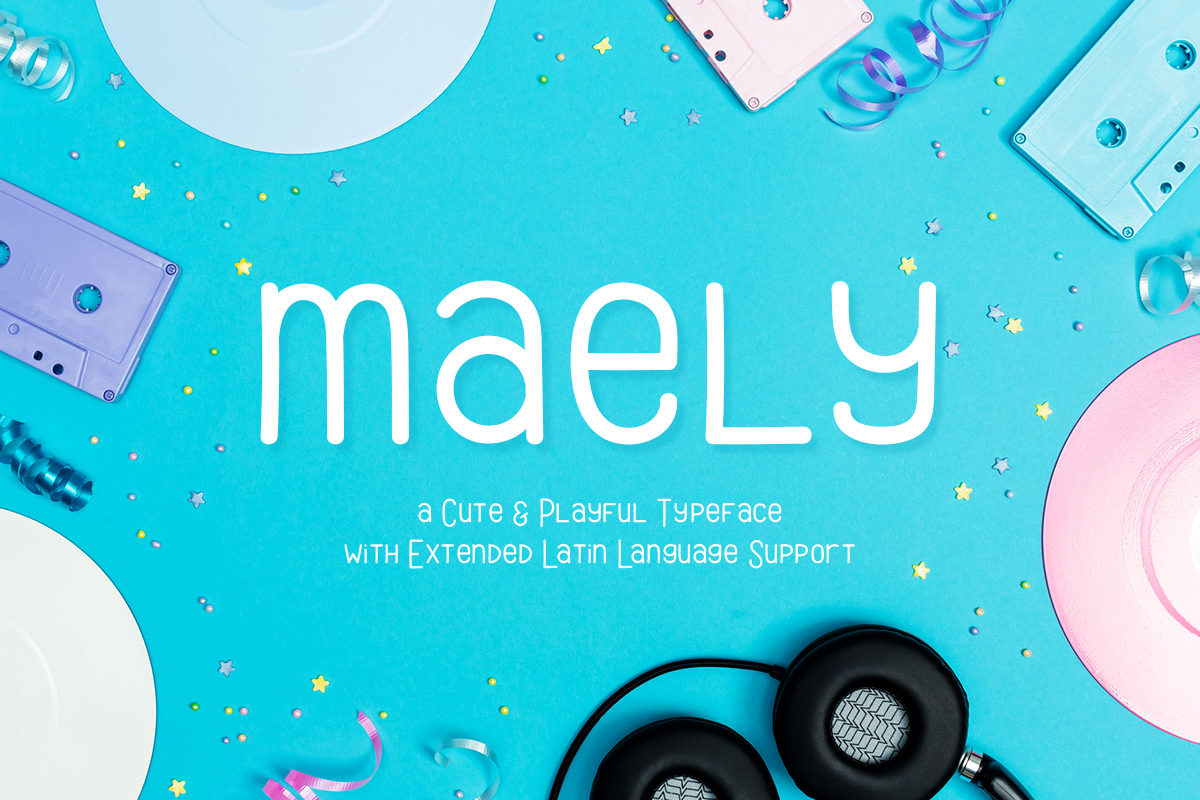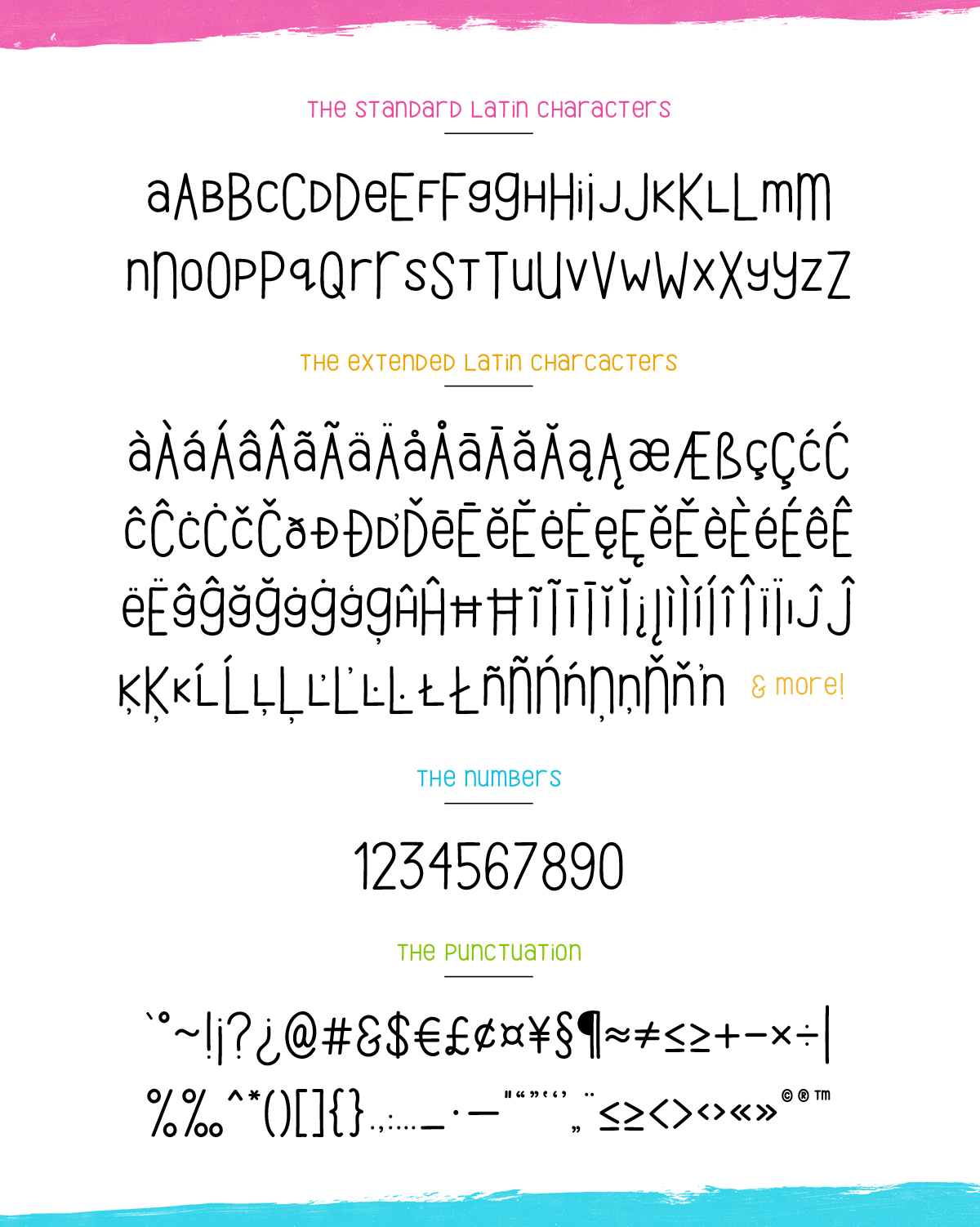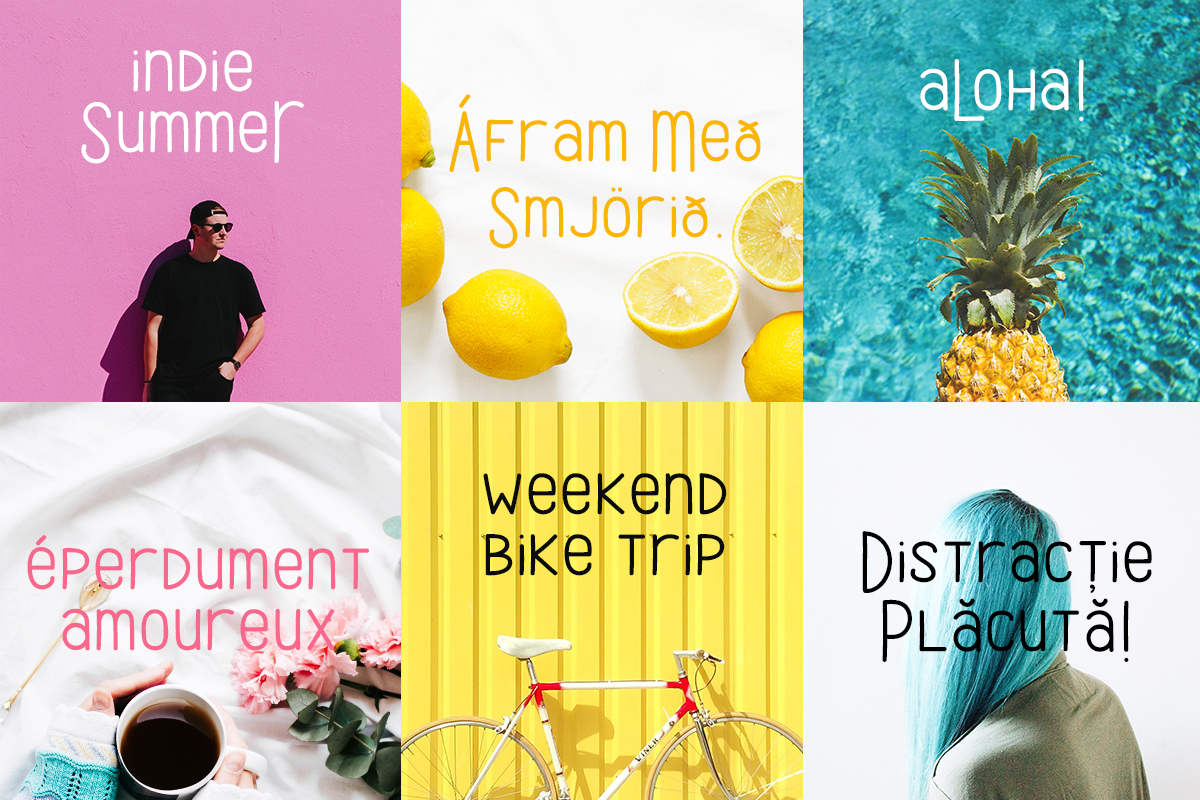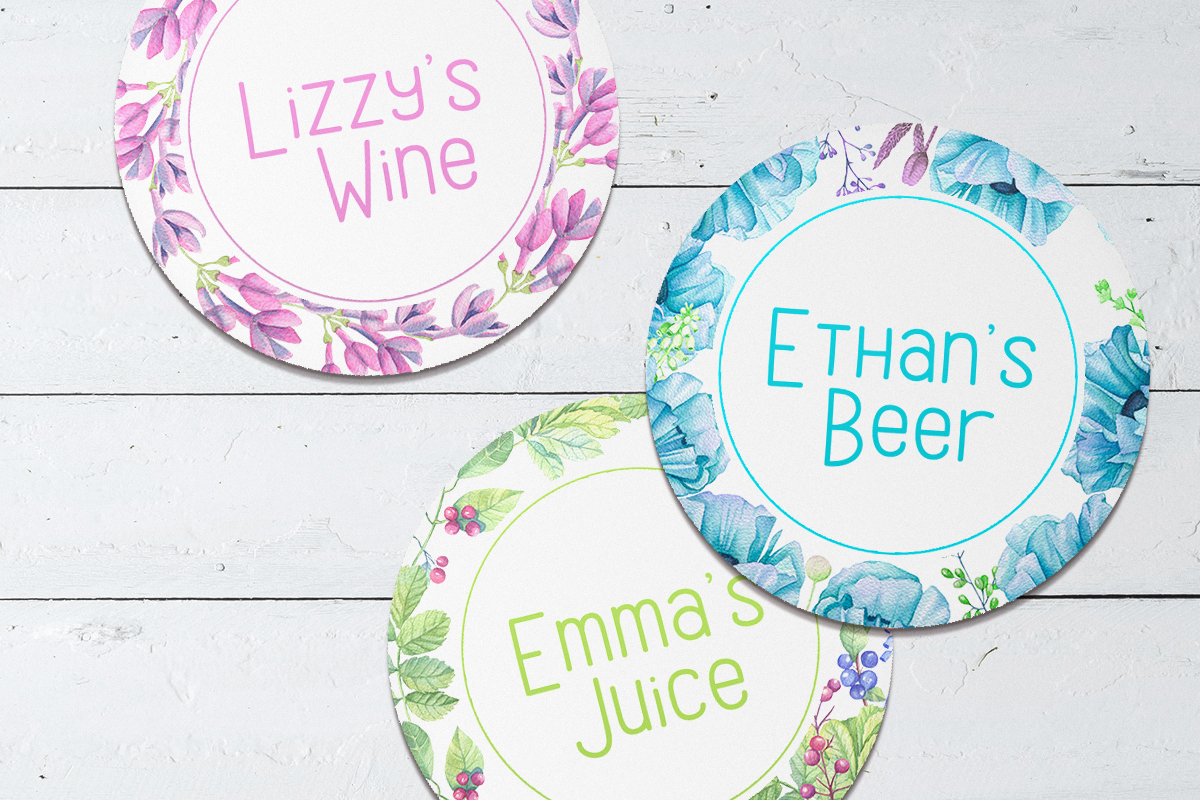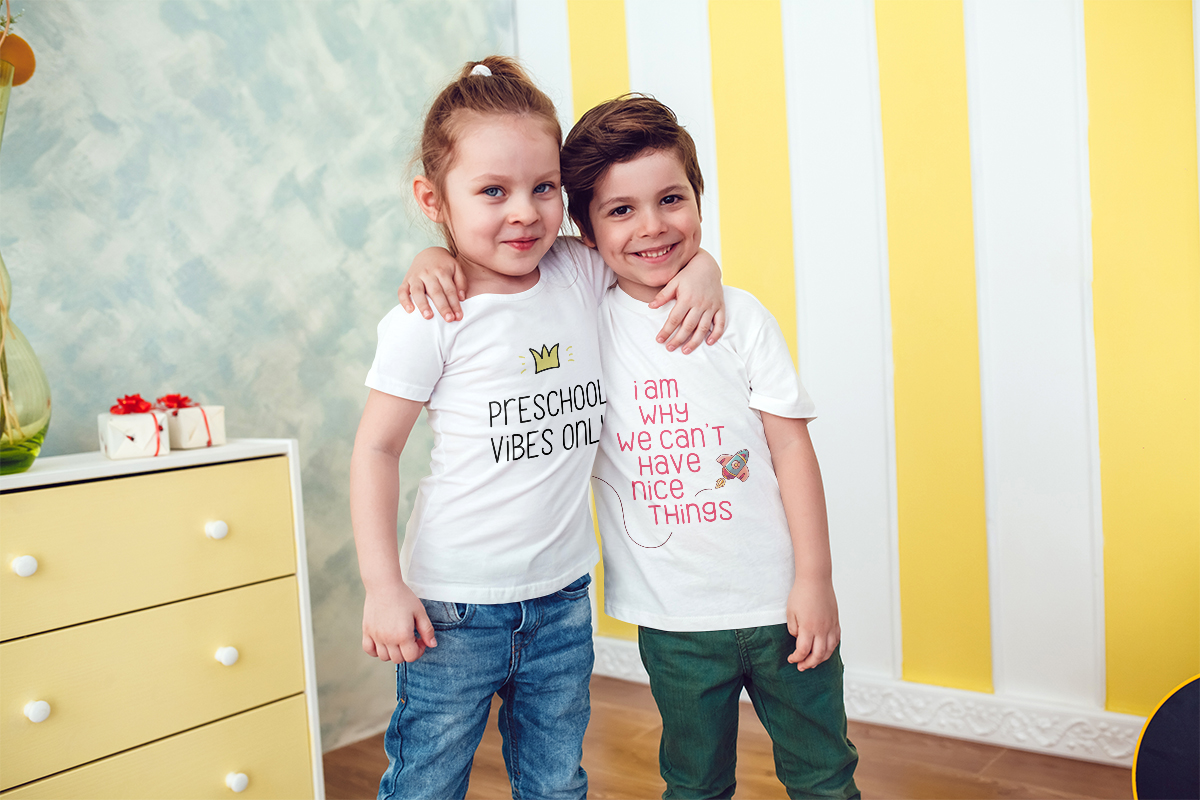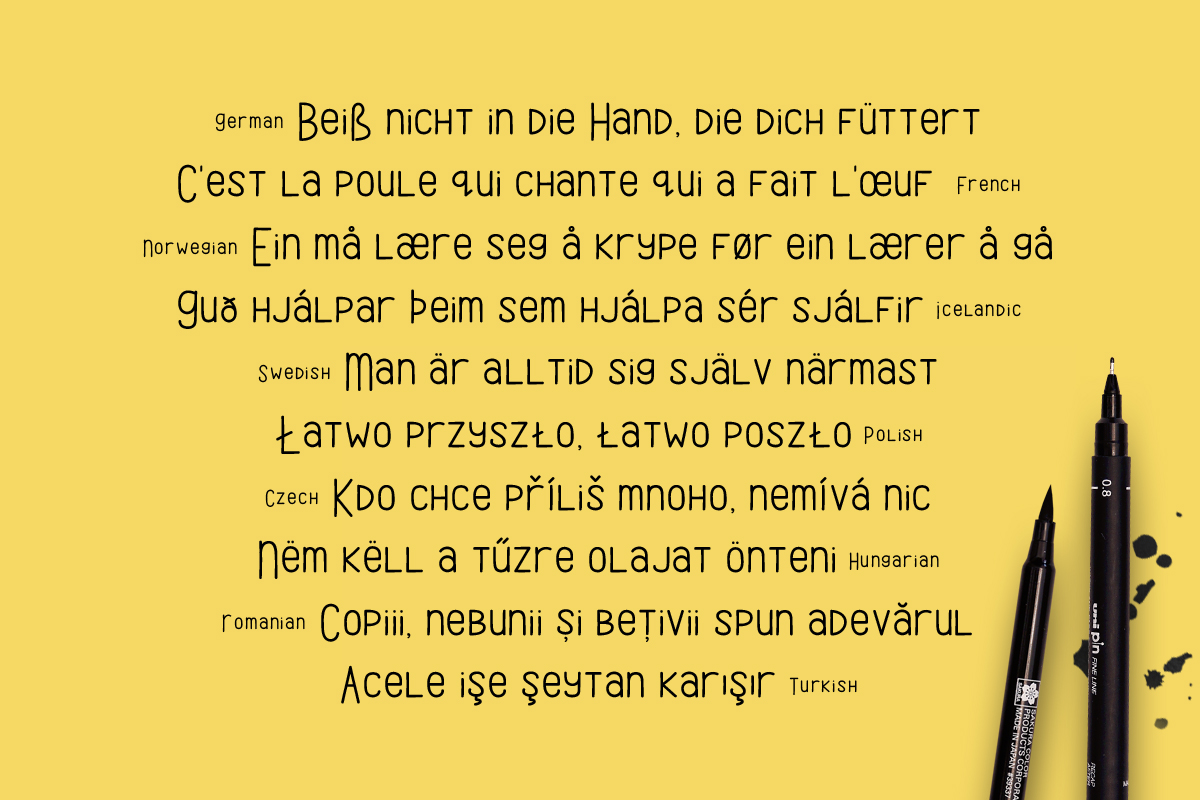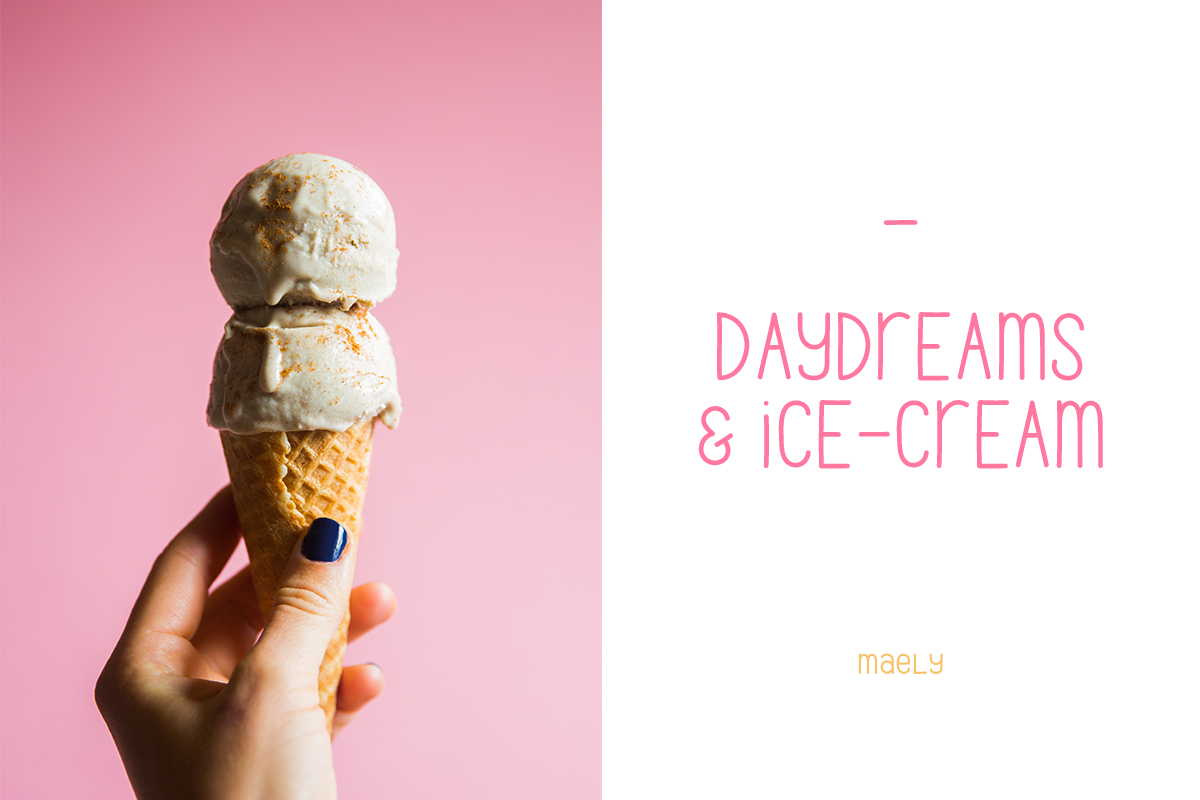
Maely Font
About Maely Font
Maely is an adorable, playful typeface with a monoline style. Its simplicity and versatility makes it perfect for many creative projects that need a quirky, cheerful vibe.